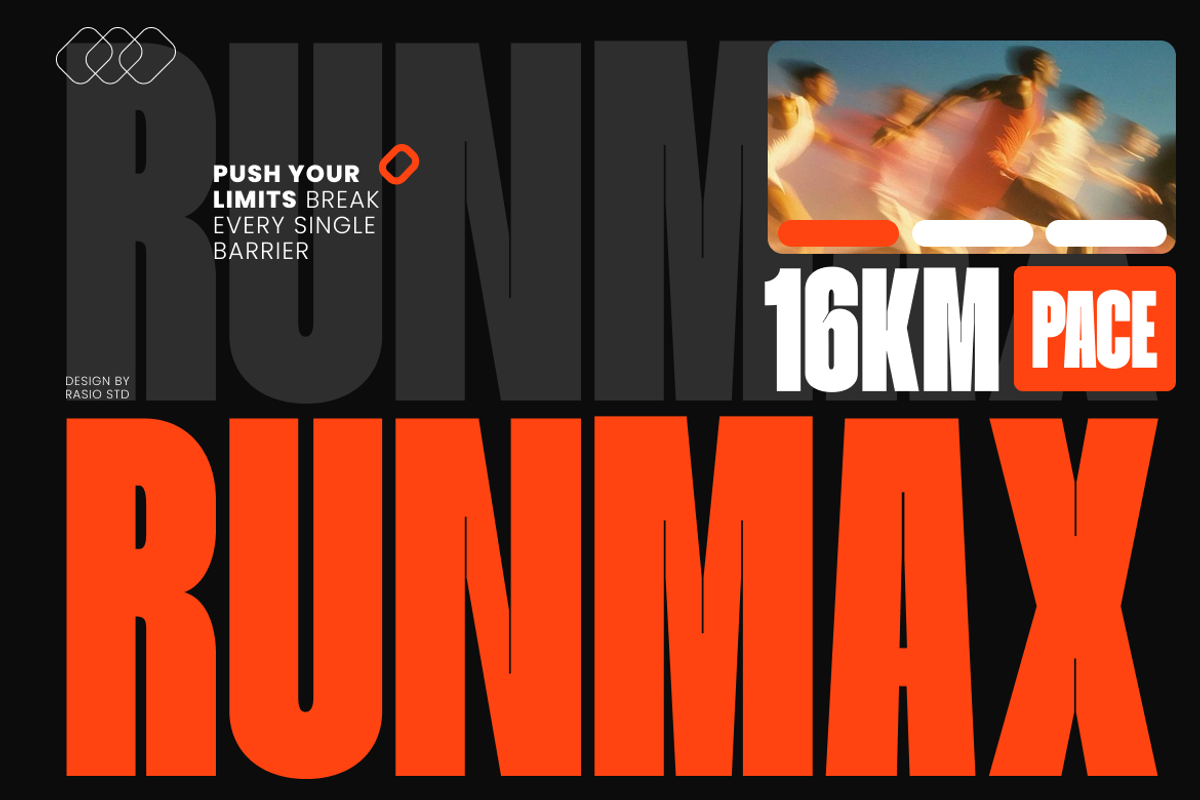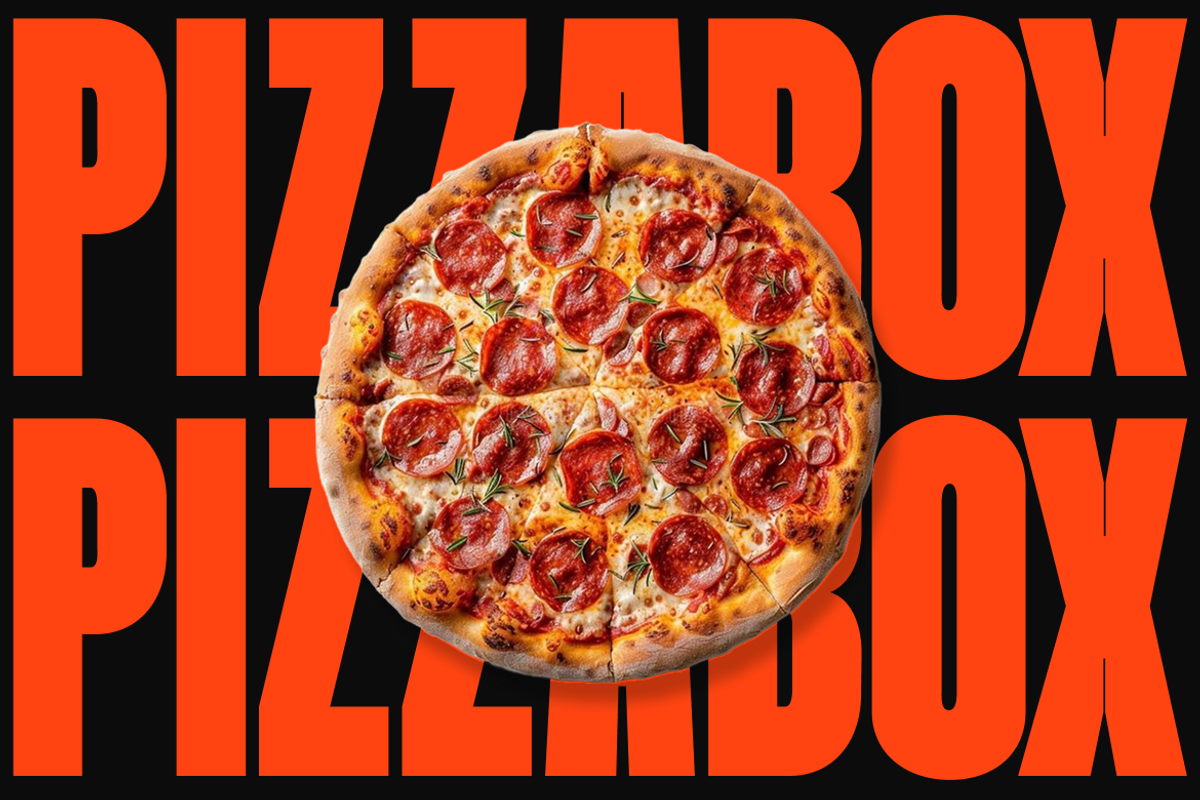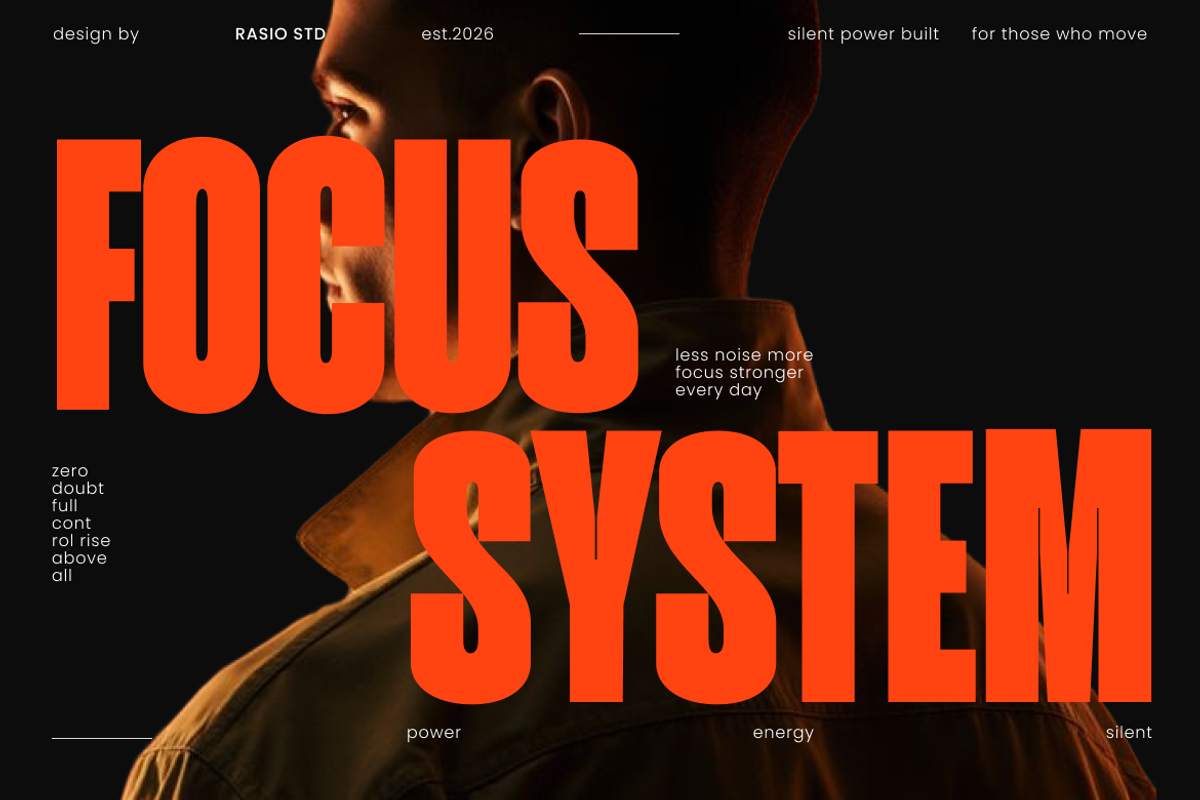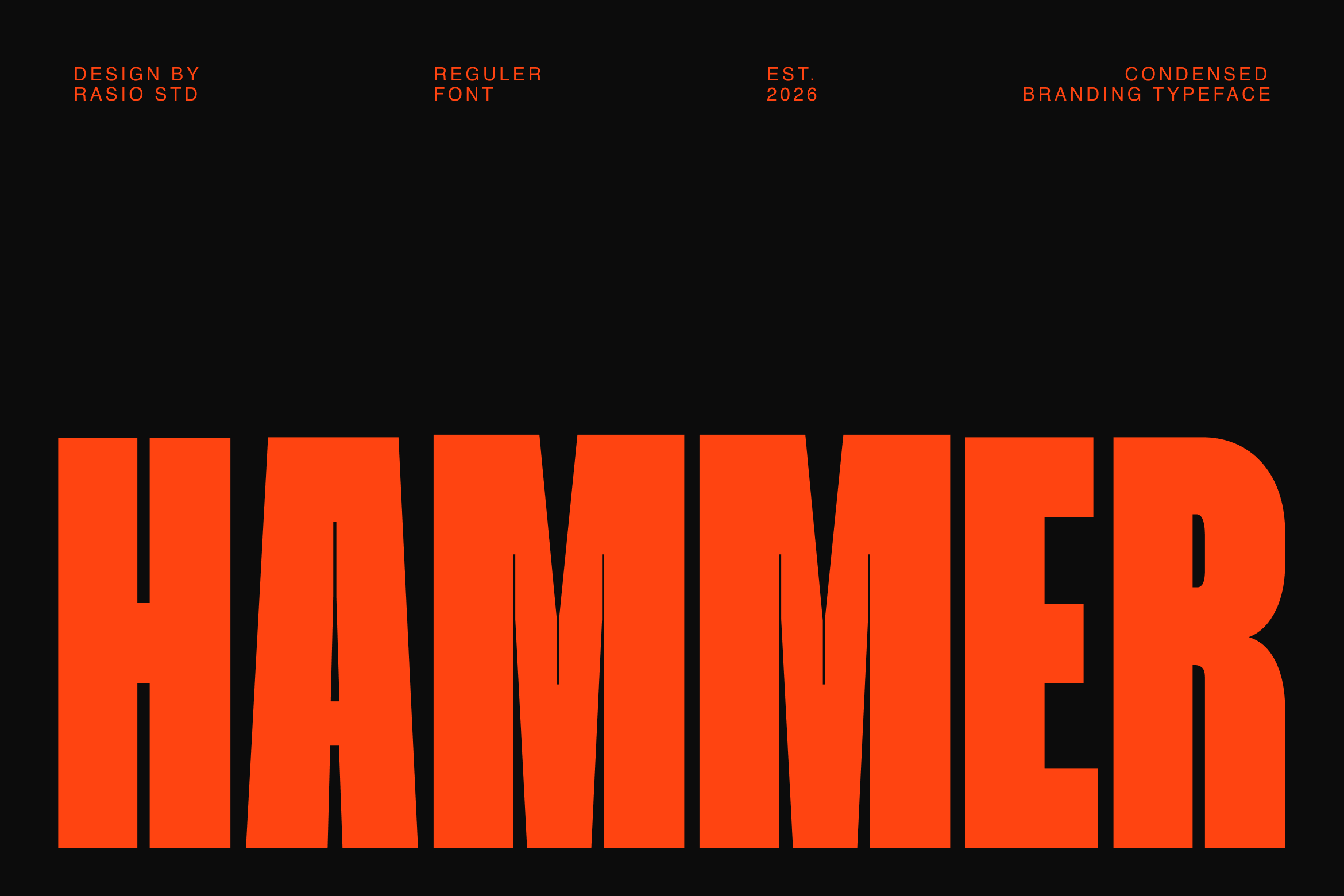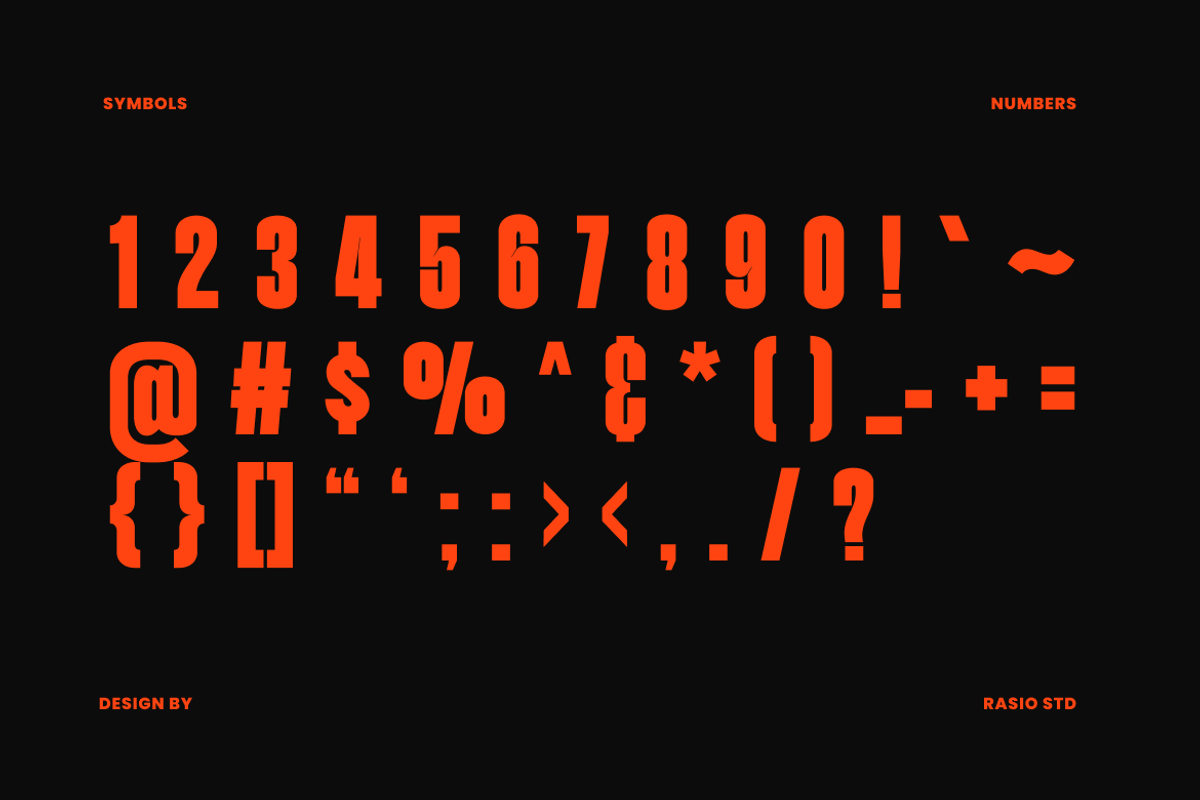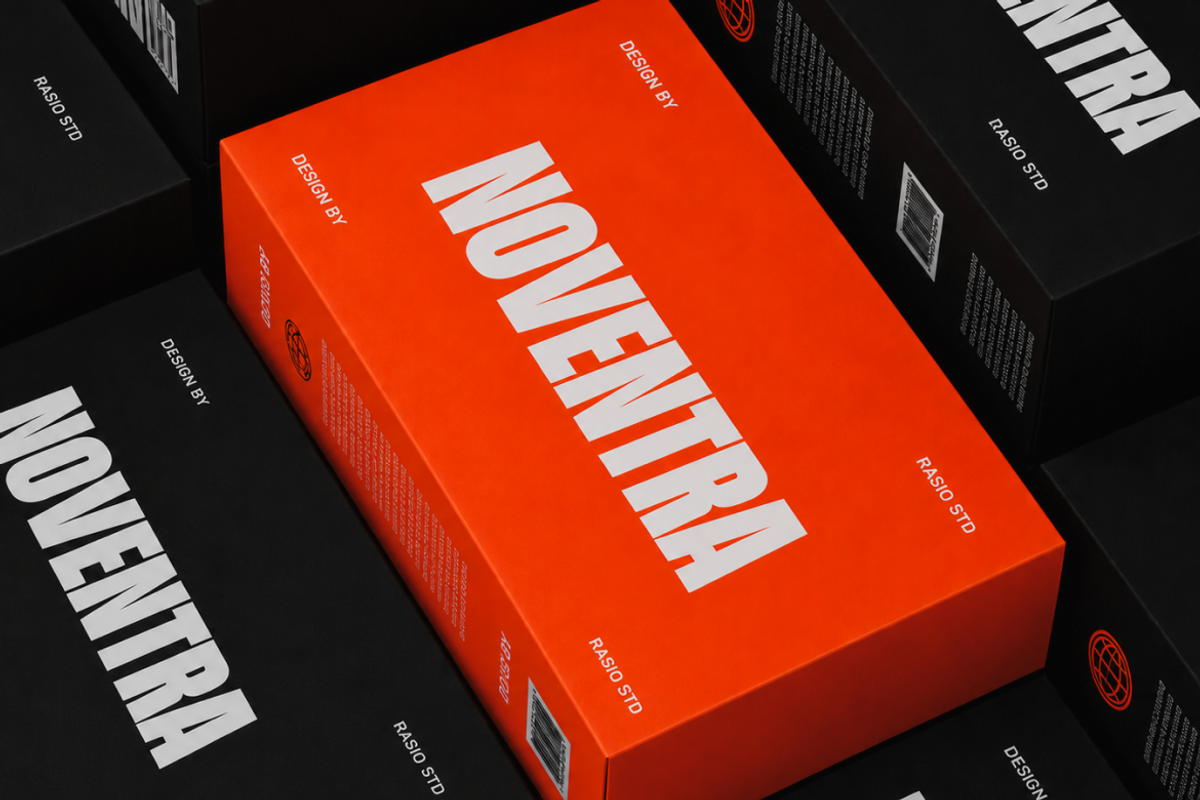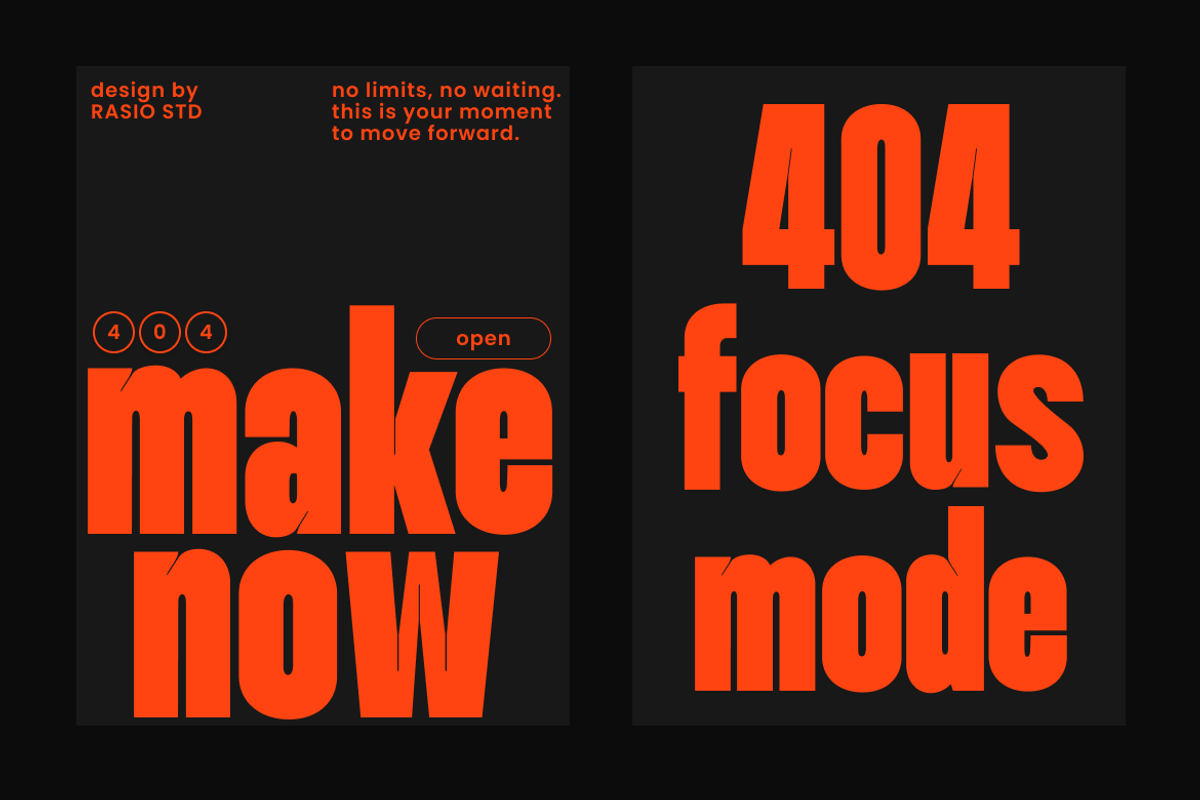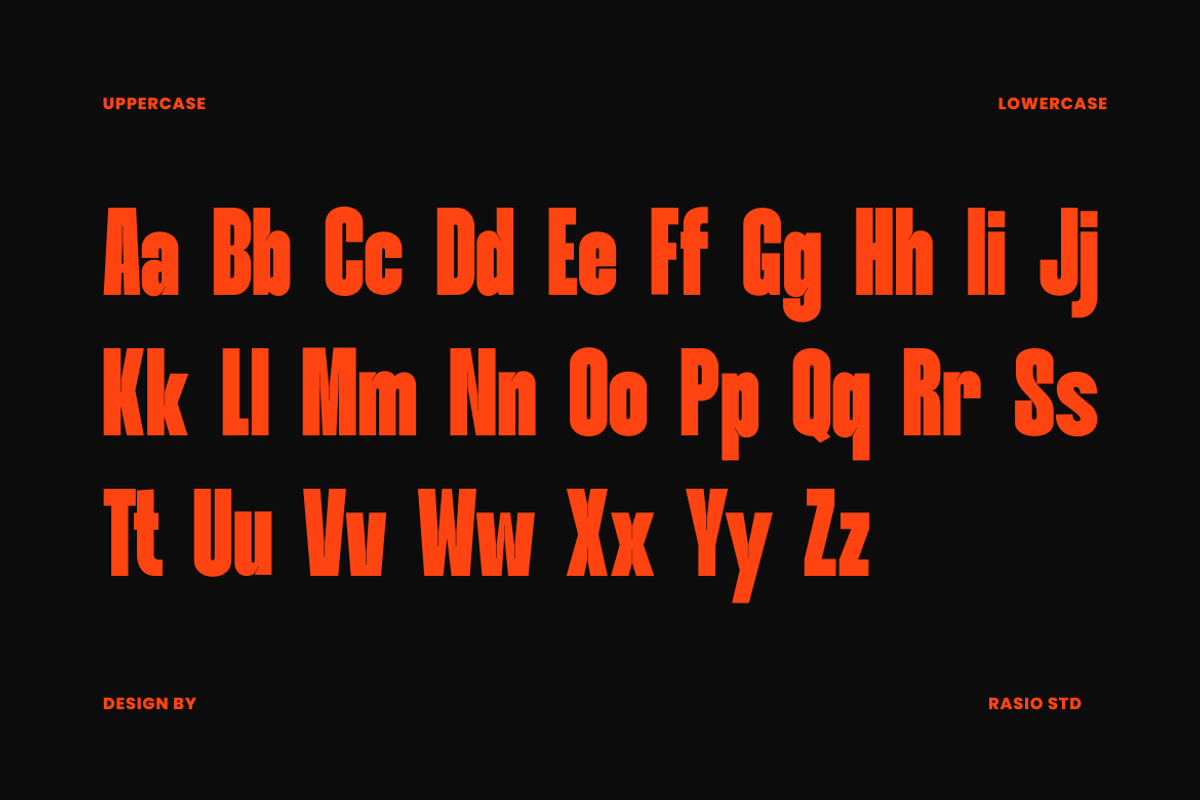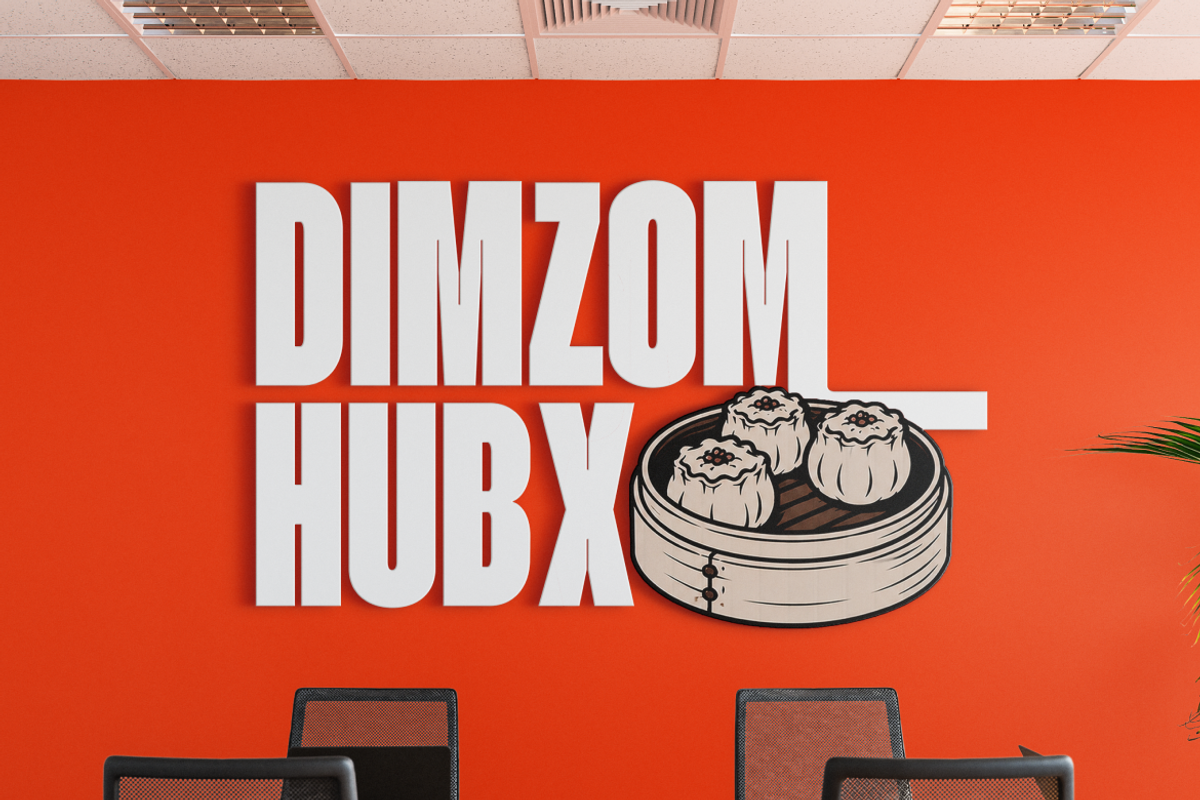
Hammer Condensed Typeface Font
Hammer Condensed Branding Typeface features a tall, bold, and compact sans serif style designed for impactful visual communication. The font includes uppercase, lowercase, numerals, punctuation with strong geometric proportions and tight spacing that create an aggressive modern appearance. Its condensed structure delivers maximum readability and space efficiency, making it highly effective for headlines, posters, branding systems, sports graphics, streetwear visuals, and editorial layouts.
Relevance and Use Cases is perfect for projects that require bold visibility, modern energy, and space-efficient typography. Its strong condensed structure works exceptionally well for posters, sports branding, fashion campaigns, music promotions, esports graphics, automotive advertising, tech visuals, streetwear labels, social media content, editorial headlines, and commercial branding systems.
Design Features :
Ultra condensed sans serif structure with tall athletic proportions
Heavy stroke weight designed for maximum headline impact
Strong vertical construction for energetic sports-inspired layouts
Tight character spacing optimized for posters and branding visuals
Clean geometric forms with sharp edges and bold visual rhythm
Sports branding and fitness campaign visuals with bold energetic appeal
Poster designs and event promotions requiring oversized impactful typography
Streetwear branding and urban apparel graphics with strong visual presence
Food advertising and restaurant promotions for attention-grabbing layouts
YouTube thumbnails and social media banners with high readability
Supports numerals, punctuation, and extensive symbol set
Push your branding to the limit with Hammer powerful headlines visual impact.